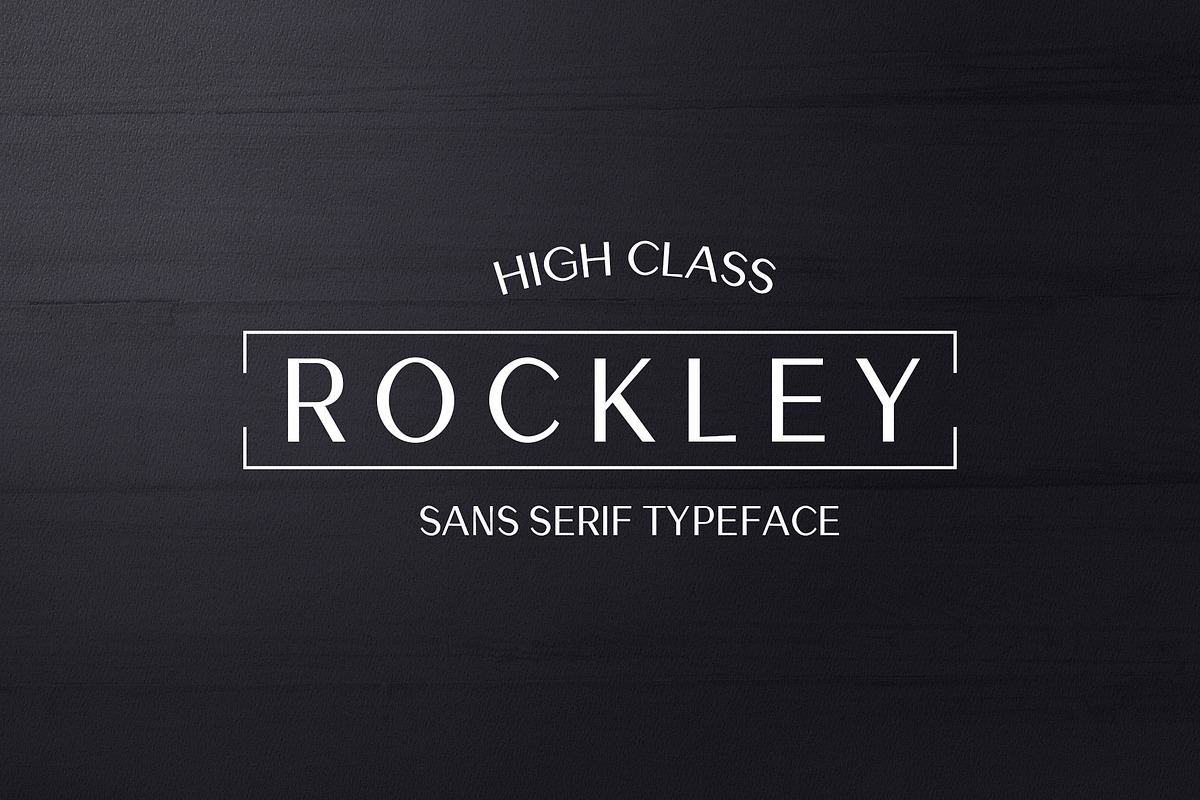
Rockley Sans Serif 10 Font Family Free Download is a clean, modern, and highly versatile font collection designed for professional and creative projects alike. With 10 distinct weights ranging from thin to black, Rockley gives you complete control over your typography—perfect for branding systems, editorial layouts, web design, marketing materials, and minimalist packaging.
Each style in the Rockley family maintains a balanced geometry and excellent legibility, making it suitable for both headlines and body text. Whether you're designing a sleek tech brand or a modern portfolio, Rockley offers the flexibility and elegance needed for polished, consistent visual communication.